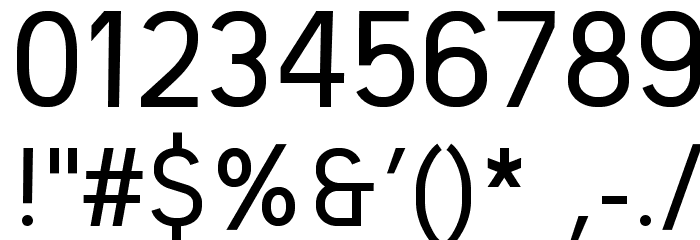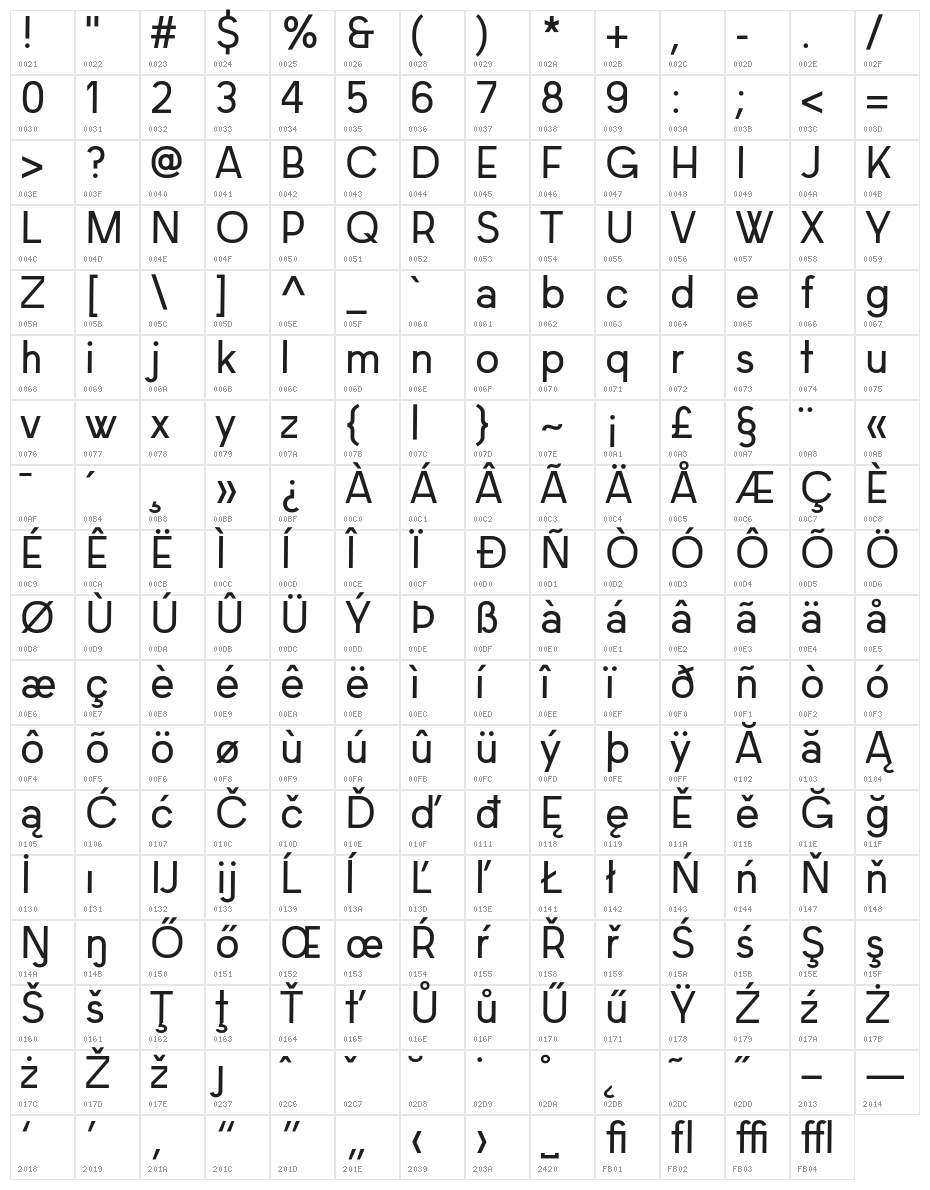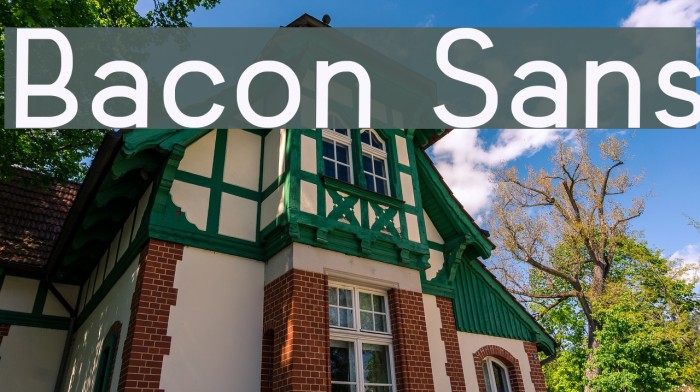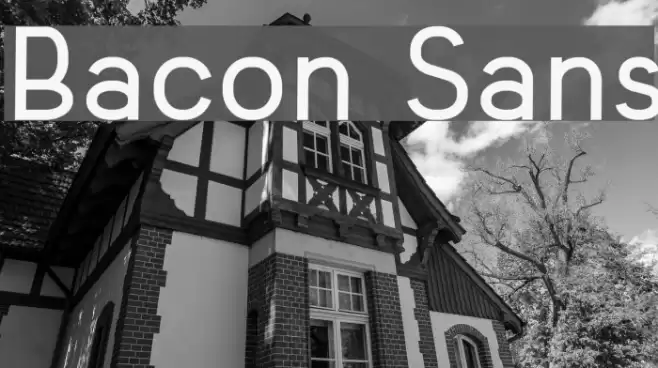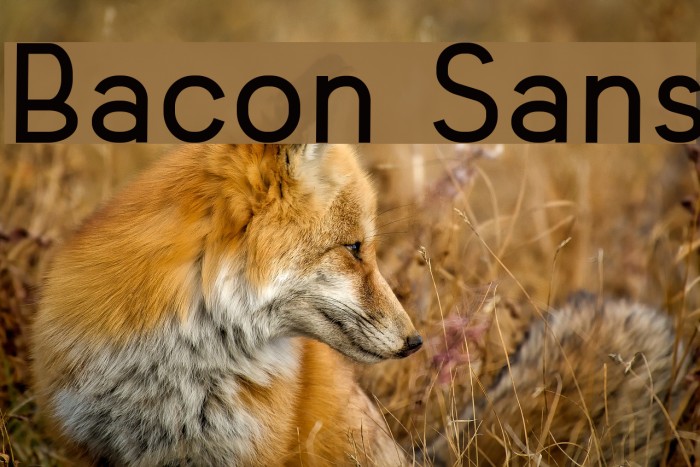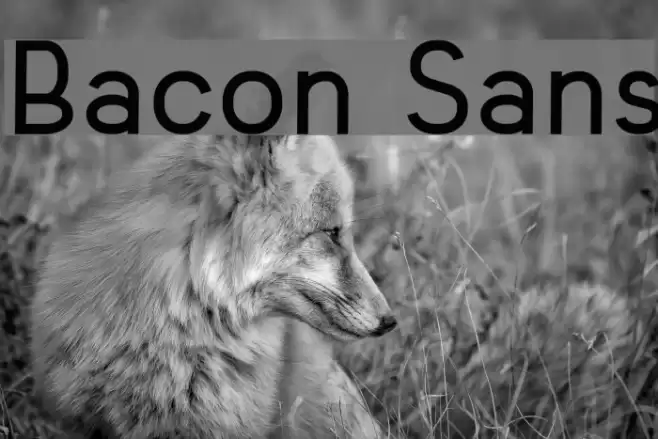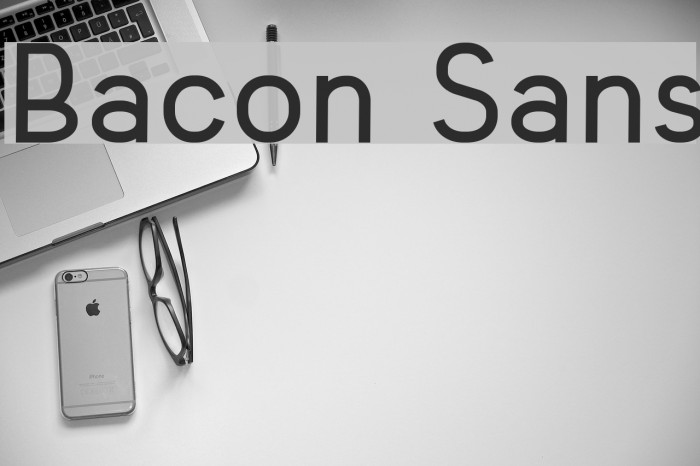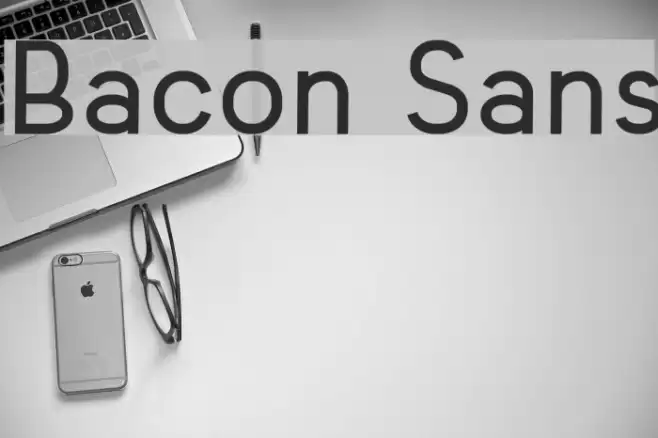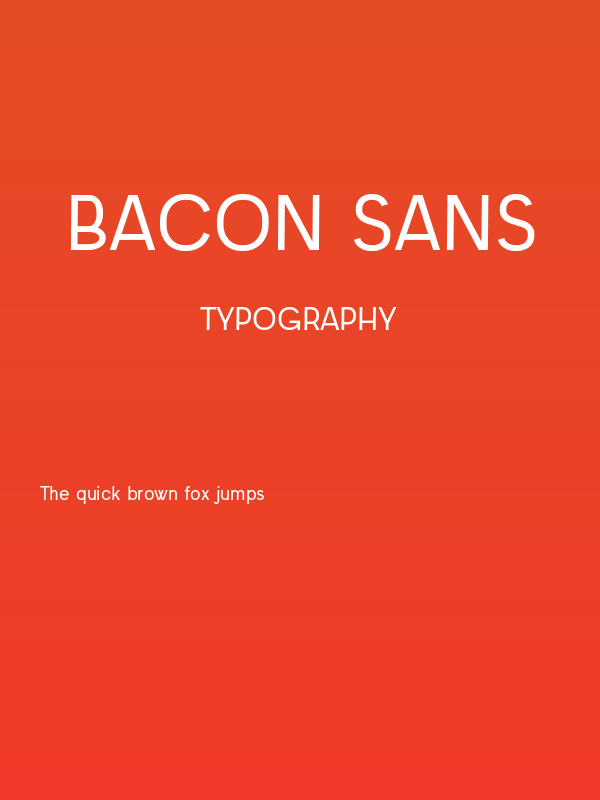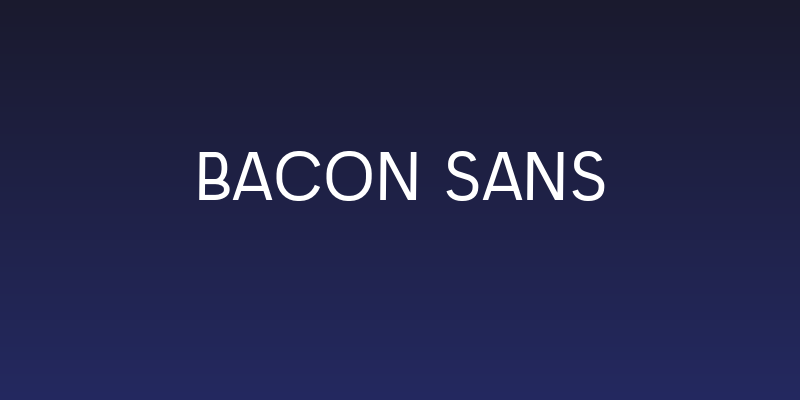
Bacon Sans Font
Bacon Sans Description
This font features a clean and modern sans-serif design, characterized by its simplicity and readability. The letters are evenly spaced with a consistent stroke width, providing a balanced and harmonious appearance. The uppercase and lowercase letters are well-proportioned, making it suitable for a variety of applications. The numerals are clear and distinct, ensuring legibility in both print and digital formats. The special characters are designed to complement the overall style, maintaining the font's sleek and contemporary look.